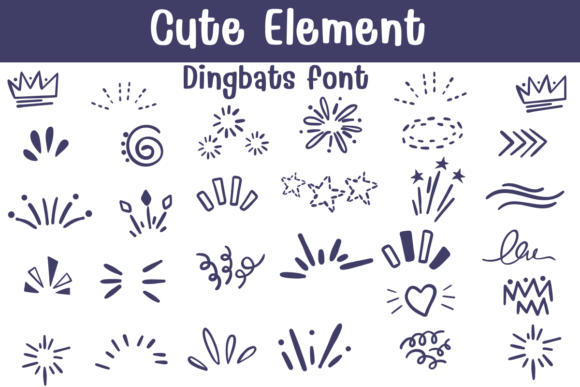
Cute Element Font: Add a Touch of Adorable Flair to Your Designs
In the world of digital design, fonts play a crucial role in conveying the tone and personality of a brand or project. If you’re looking for a font that can add a touch of whimsy and charm to your designs, look no further than the Cute Element Font. This delightful dingbats font is packed with tiny embellishments like sparkles, crowns, bursts, hearts, and decorative lines, making it perfect for accenting titles, logos, journaling, or product packaging.
What is Cute Element Font?
Cute Element Font is a charming dingbats font that features a collection of tiny, adorable embellishments. These sweet little assets are designed to add a touch of flair to your designs, making them perfect for a variety of applications, from titles and logos to journaling and product packaging. The font is made up of a range of elements, including sparkles, crowns, bursts, hearts, and decorative lines, allowing you to add a touch of personality to your designs.
Features of Cute Element Font
The Cute Element Font is packed with features that make it a versatile and fun font to work with. Some of the key features of this font include:
- Tiny Embellishments: The font features a range of tiny embellishments, including sparkles, crowns, bursts, hearts, and decorative lines.
- Dingbats Font: The Cute Element Font is a dingbats font, making it perfect for adding a touch of whimsy and charm to your designs.
- Adorable Flair: The font is designed to add a touch of adorable flair to your designs, making it perfect for projects that require a playful and charming touch.
- Versatile: The Cute Element Font is versatile and can be used in a variety of applications, from titles and logos to journaling and product packaging.
Uses of Cute Element Font
The Cute Element Font is a versatile font that can be used in a variety of applications. Some of the most popular uses of this font include:
- Accenting Titles: The font is perfect for accenting titles, adding a touch of whimsy and charm to your headings.
- Logos: The Cute Element Font is a great choice for logos, adding a touch of personality and charm to your brand’s identity.
- Journaling: The font is perfect for journaling, allowing you to add a touch of whimsy and charm to your journal entries.
- Product Packaging: The Cute Element Font is a great choice for product packaging, adding a touch of adorable flair to your product labels and packaging.
Benefits of Using Cute Element Font
The Cute Element Font offers a range of benefits, including:
- Unique and Playful: The font is unique and playful, allowing you to add a touch of personality to your designs.
- Versatile: The font is versatile and can be used in a variety of applications.
- High-Quality: The Cute Element Font is a high-quality font, ensuring that your designs look professional and polished.
- Have Fun: Most importantly, have fun and be creative with the font!
The Cute Element Font is a charming dingbats font that is perfect for adding a touch of whimsy and charm to your designs. With its range of tiny embellishments, including sparkles, crowns, bursts, hearts, and decorative lines, this font is ideal for accenting titles, logos, journaling, or product packaging. Whether you’re a designer or a DIY enthusiast, the Cute Element Font is a great choice for anyone looking to add a touch of adorable flair to their designs.
- What is the Cute Element Font? The Cute Element Font is a charming dingbats font that features a collection of tiny, adorable embellishments.
- What is the Cute Element Font used for? The font is perfect for accenting titles, logos, journaling, or product packaging.